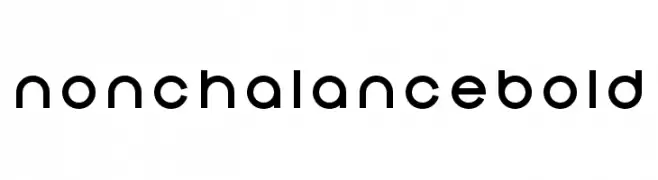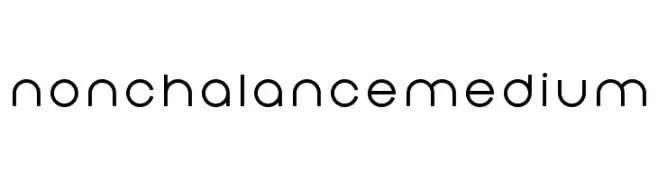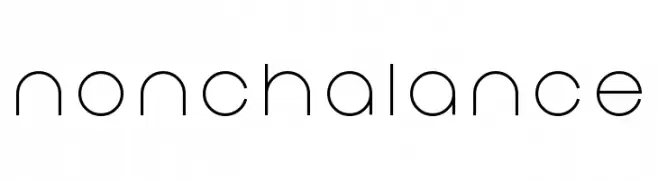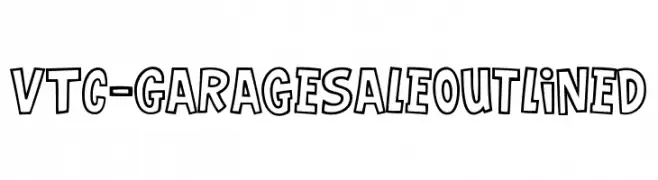
( Fonts by Toto )
A decorative font with letters filled with detailed bird and foliage illustrations.
( Fonts by Toto )
An artistic font with detailed bird illustrations within each letter.
( www.southype.com )
Hand-drawn Easter egg illustrations with varied decorative patterns.
A playful, outlined font with a hand-drawn, casual style.
( Colorbean )
A minimalist, geometric font with clean lines and rounded edges.
( Colorbean )
A modern, geometric sans-serif font with a bold and clean design.
( Colorbean )
A clean, geometric font with a modern and balanced design.
( London's Letters - www.londonsletters.com/ )
A playful, decorative font with colorful, rainbow-like patterns and a whimsical style.
A bold, 3D font with an inverted color scheme and strong visual impact.
A bold, playful font with layered, colorful designs and rounded edges.